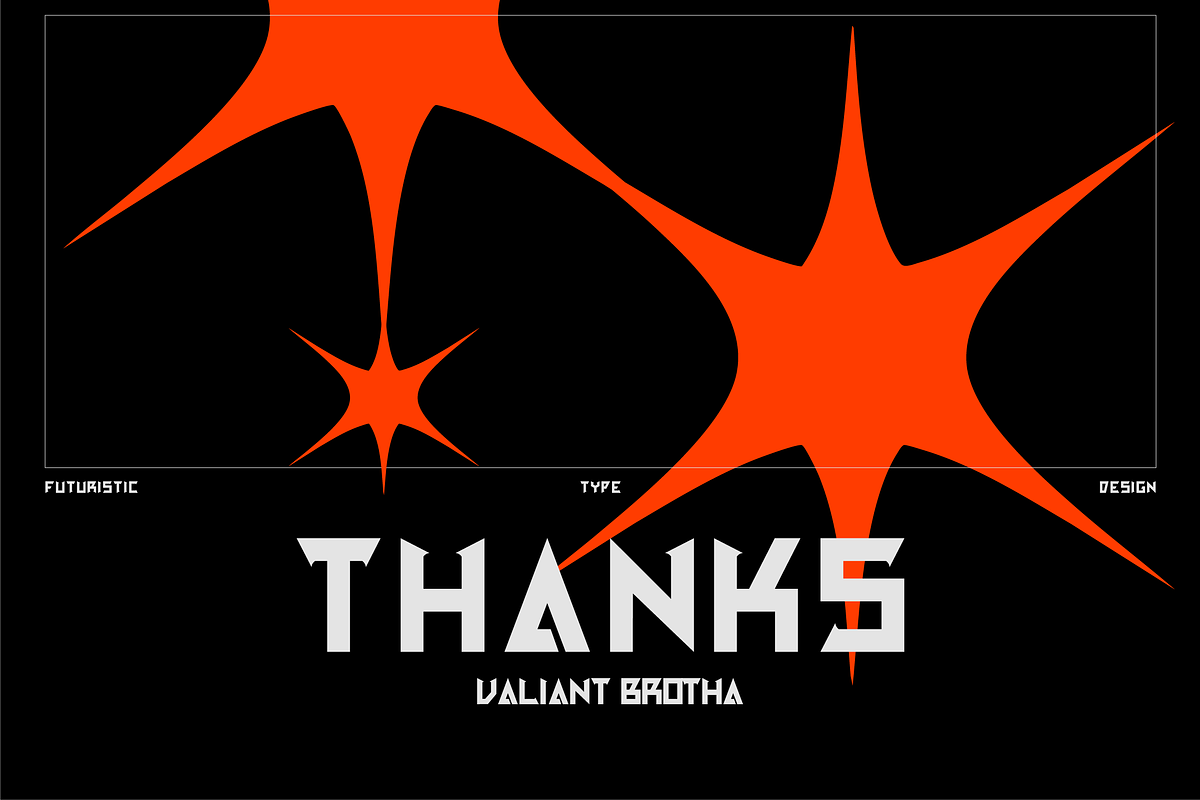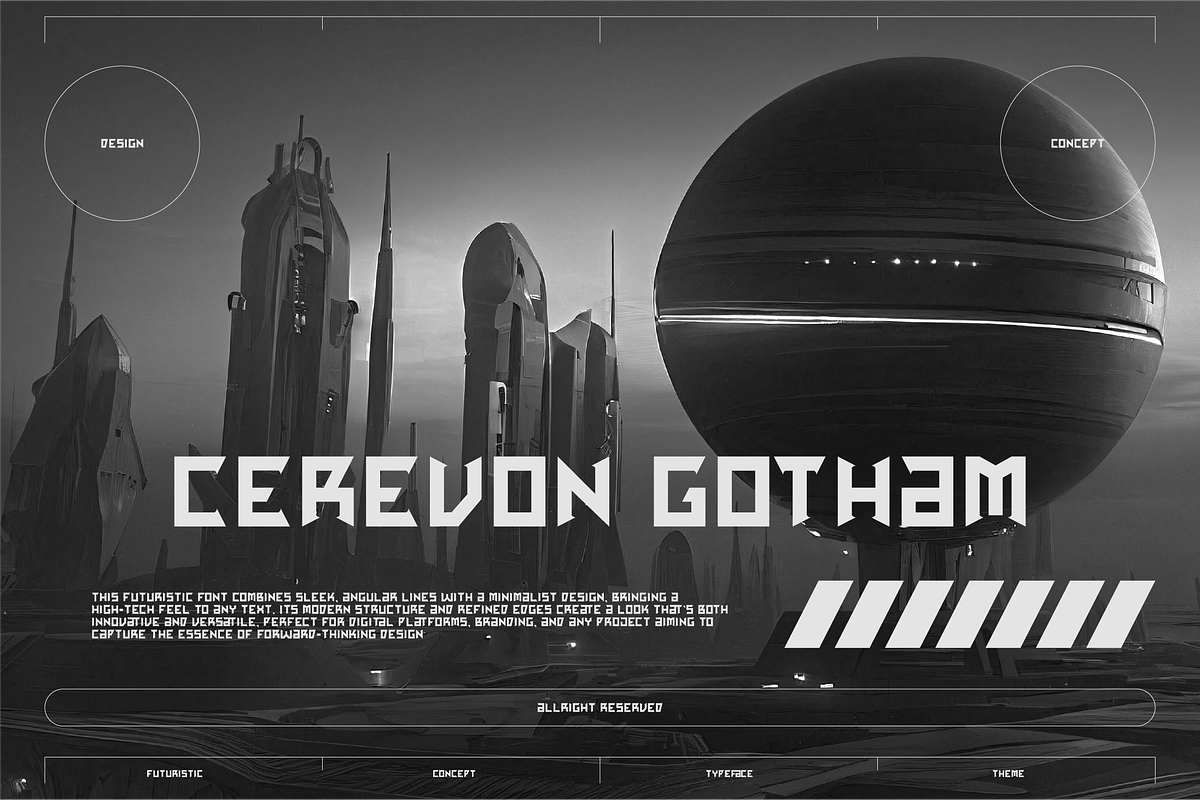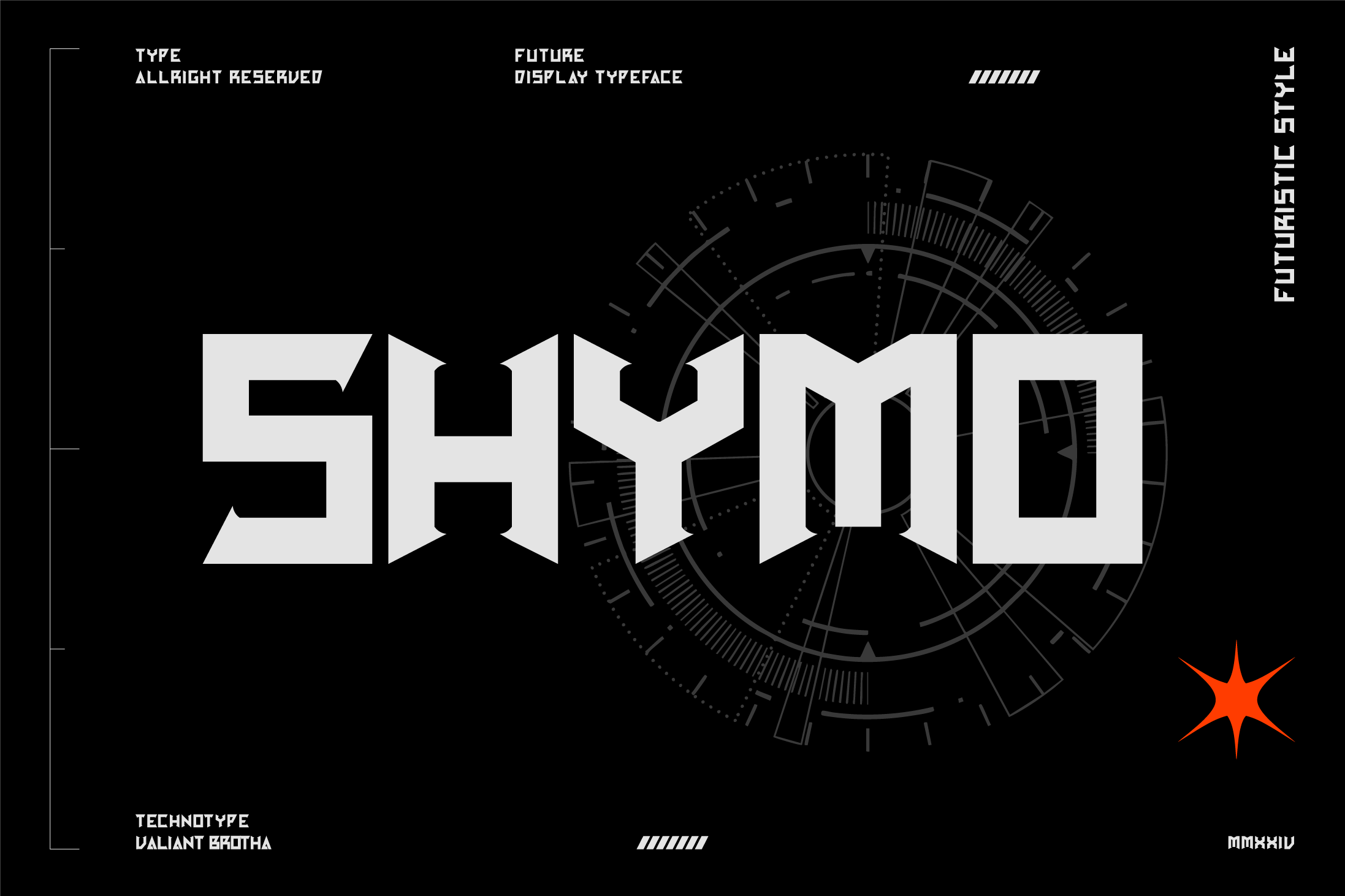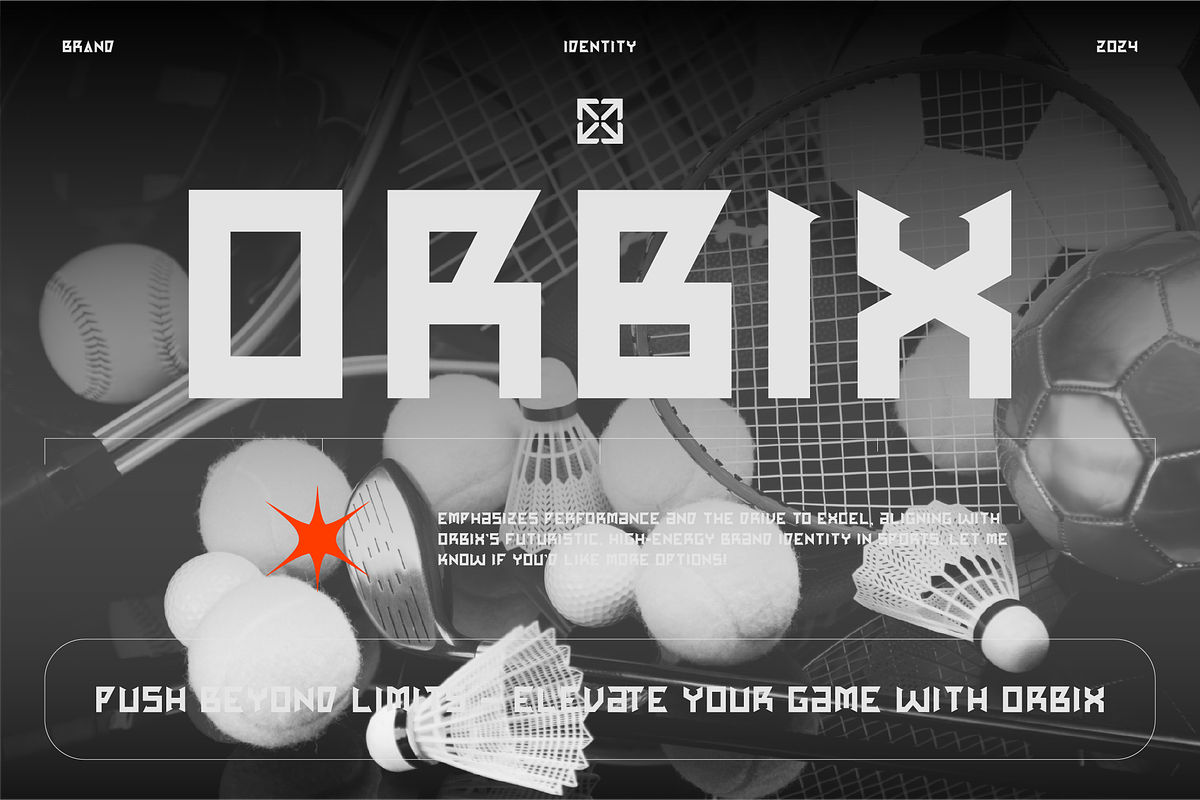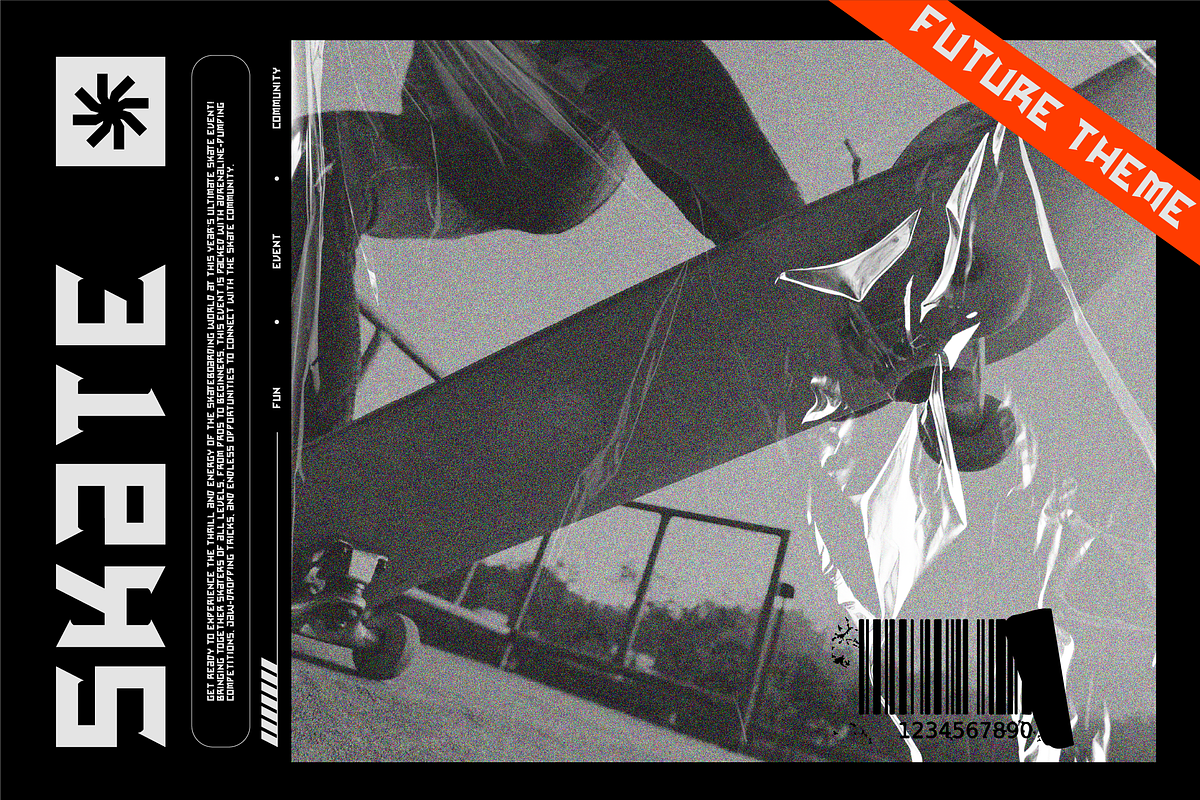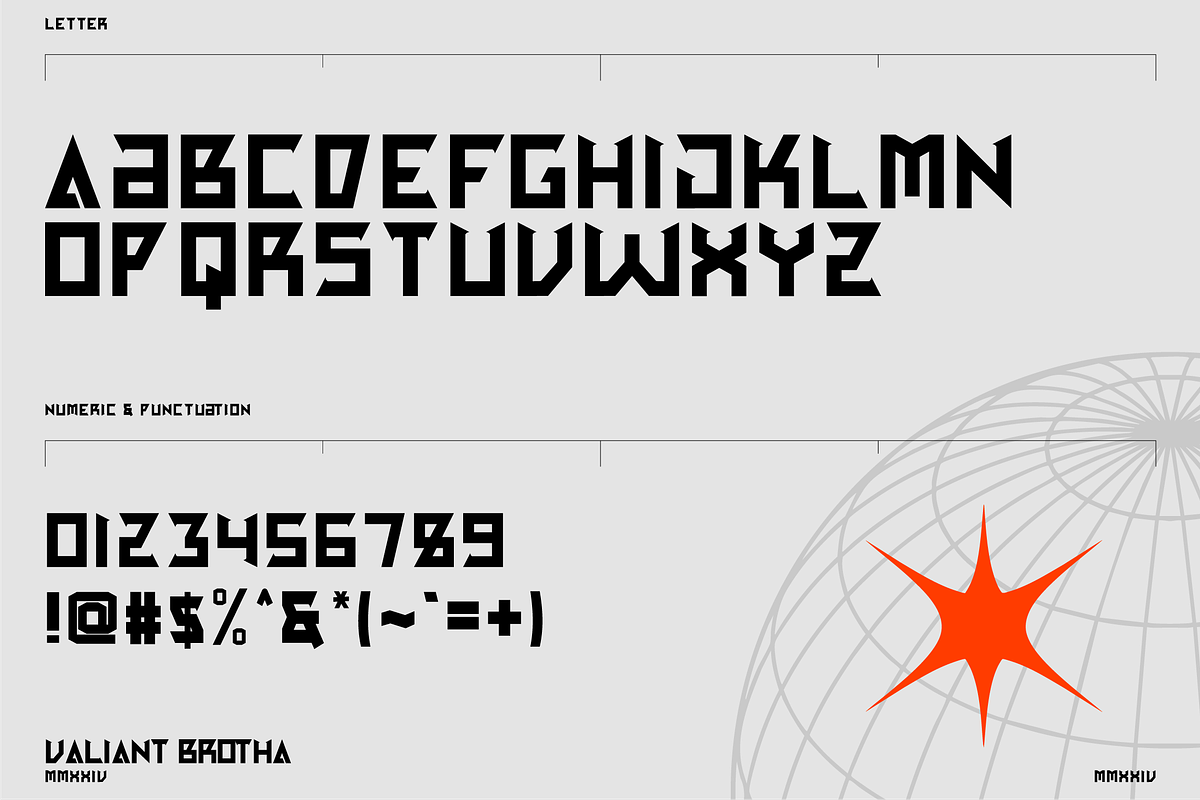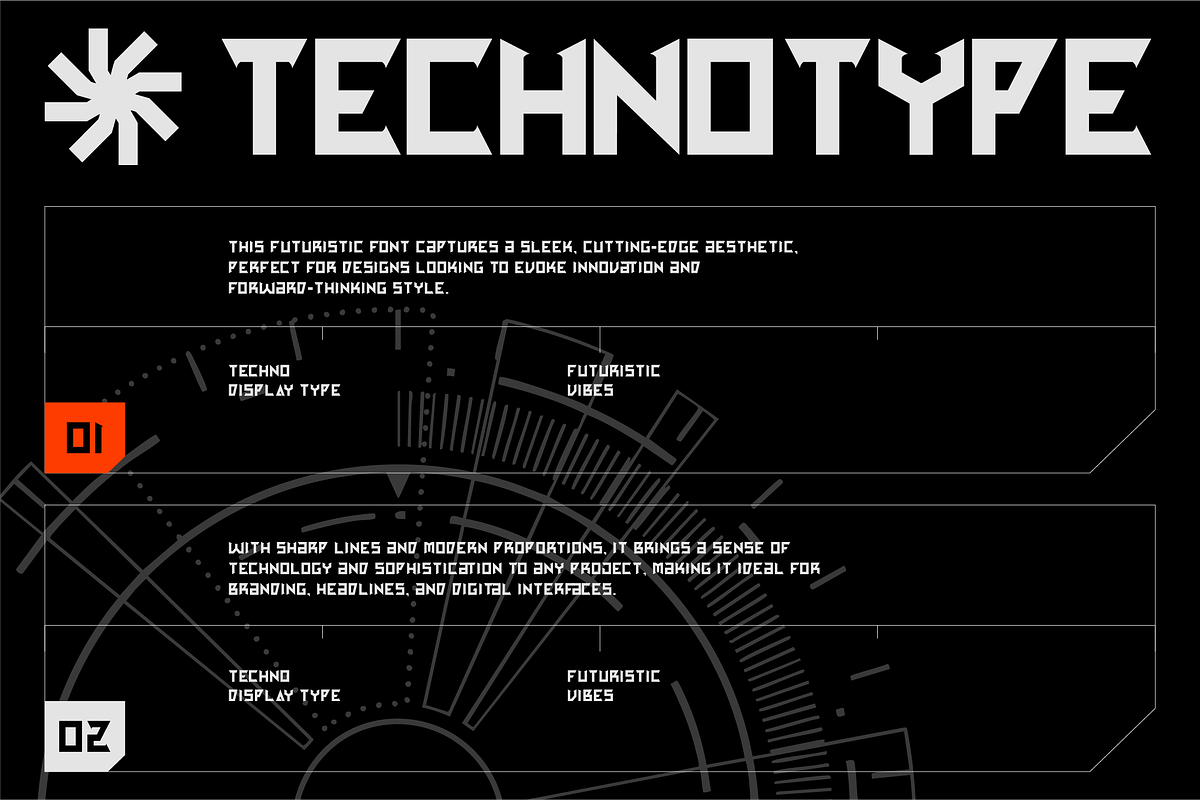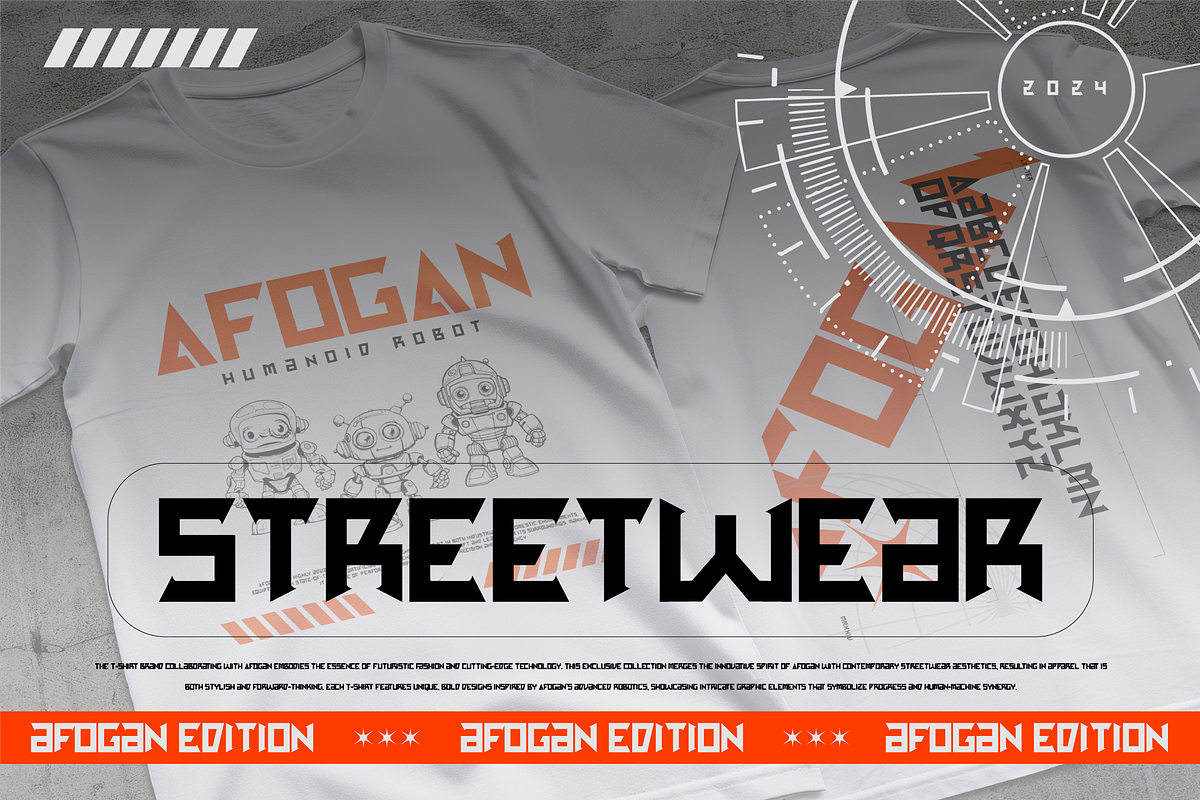
VB Shymo - Futuristic Font
Unveil the next level of design with Shymo, a futuristic typeface that merges sleek, techno-inspired aesthetics with cutting-edge innovation.